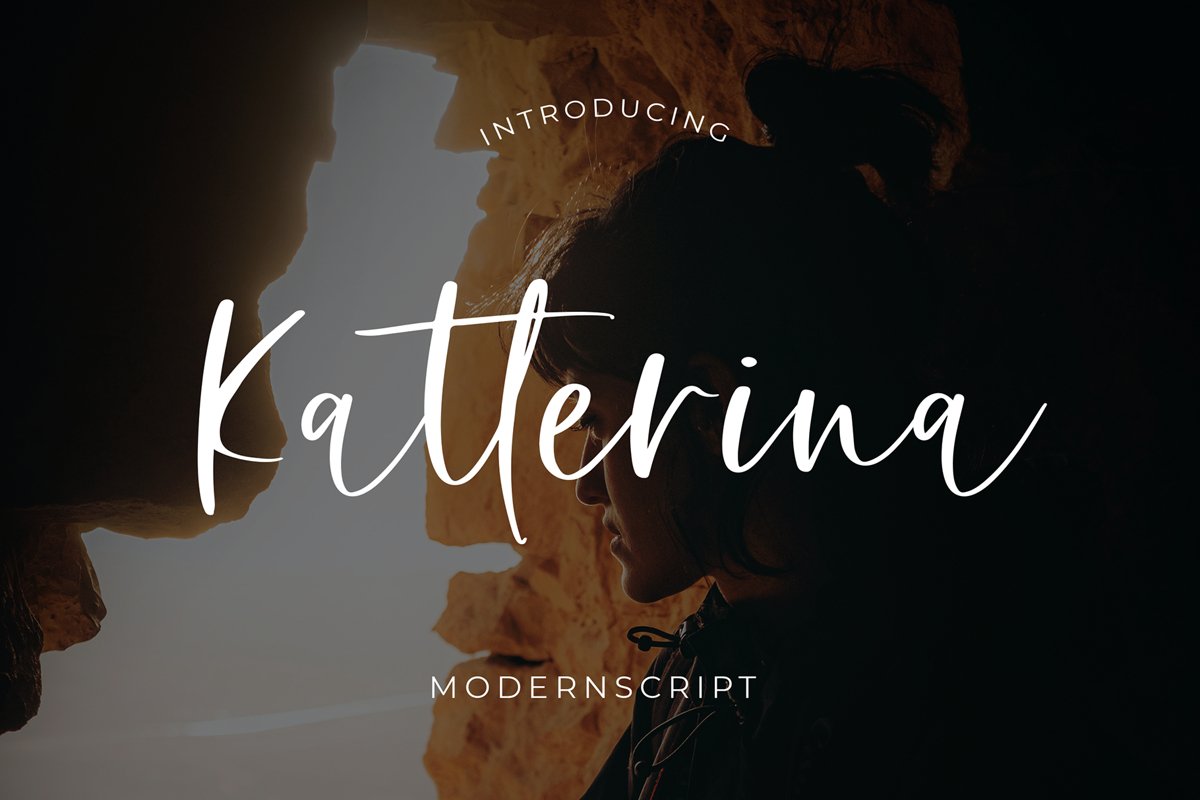
Katterina Modern Script Font
Katterina
katterina is a beautiful font with modern style. It’s perfect for adding a graceful feel to any design project.
katterina is perfect for branding projects, logo, wedding designs, social media posts, advertisements, product packaging, product designs, label, photography, watermark, invitation, stationery and any projects.